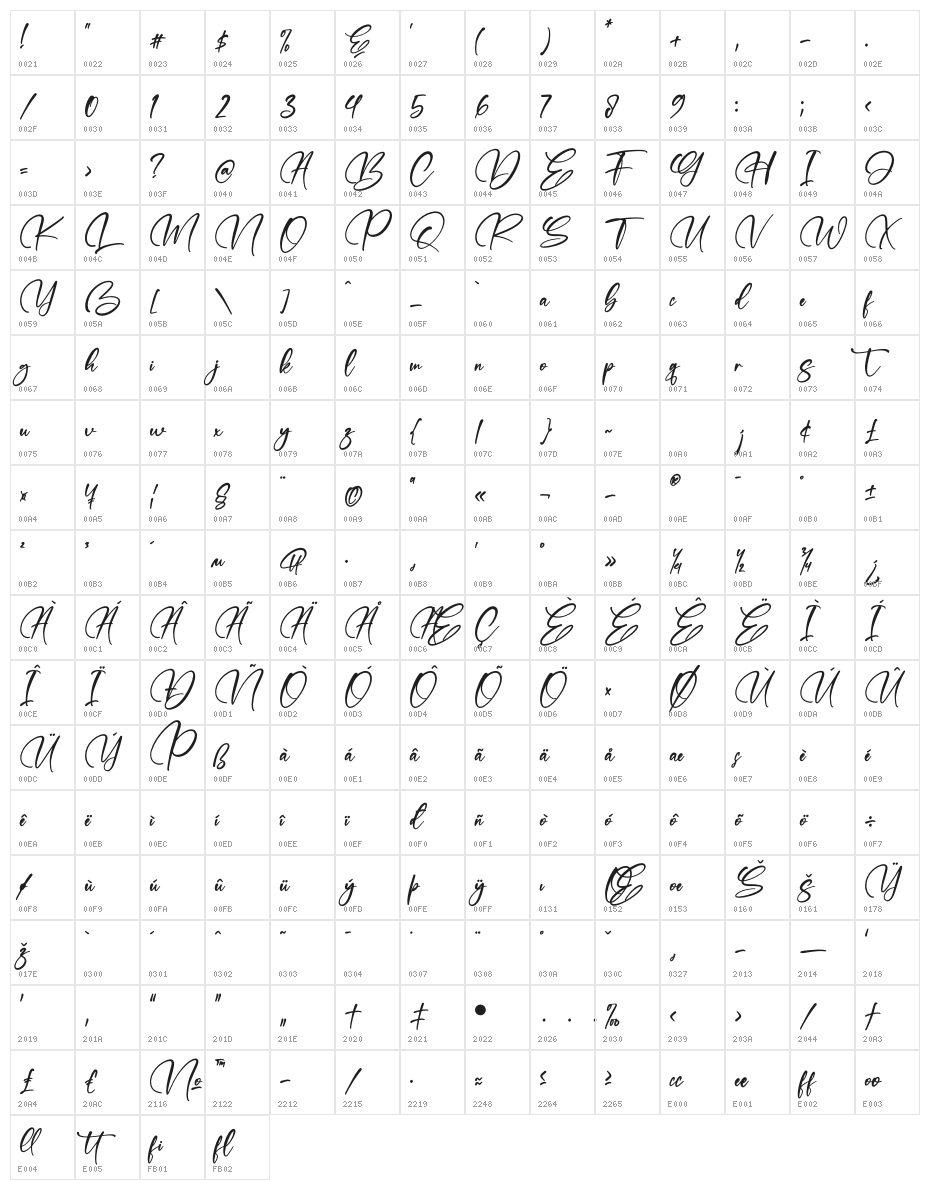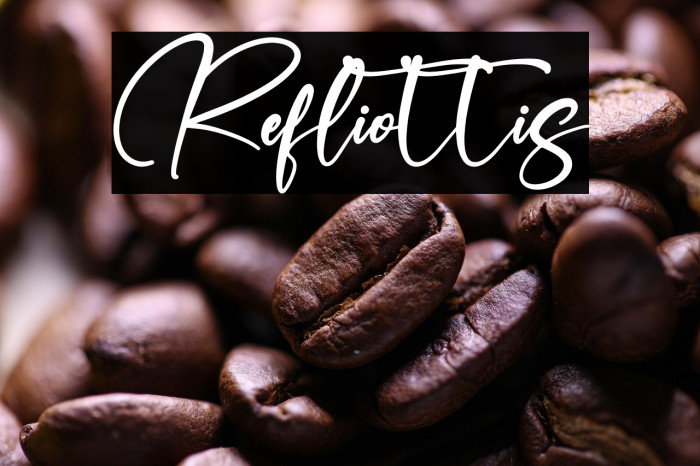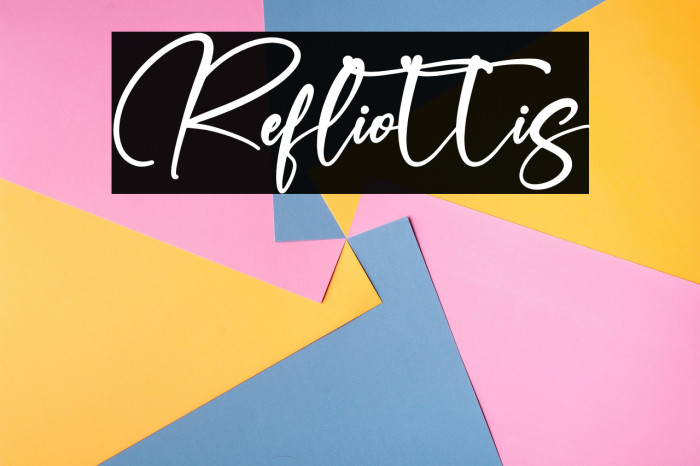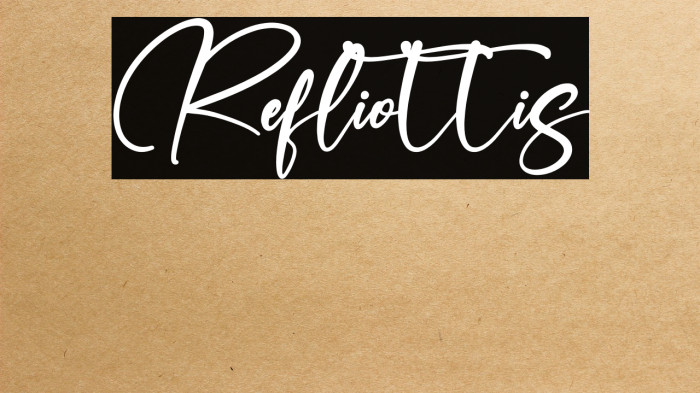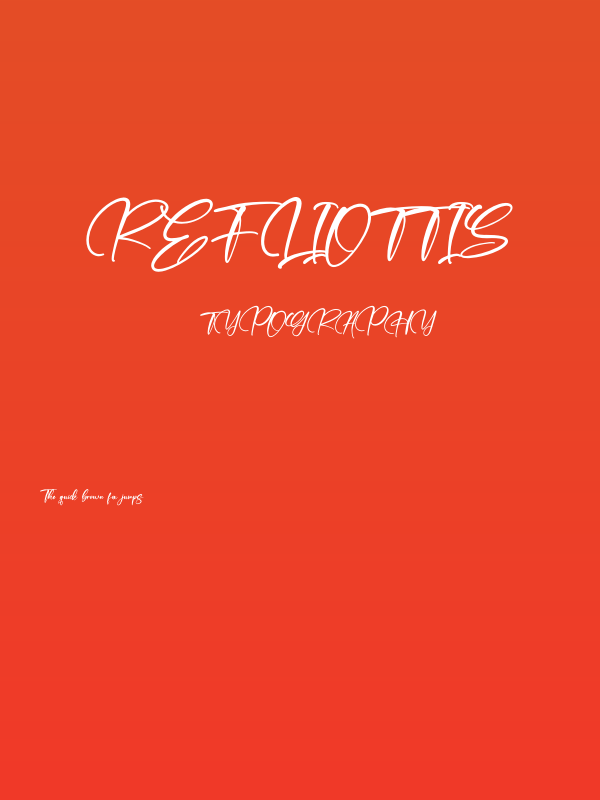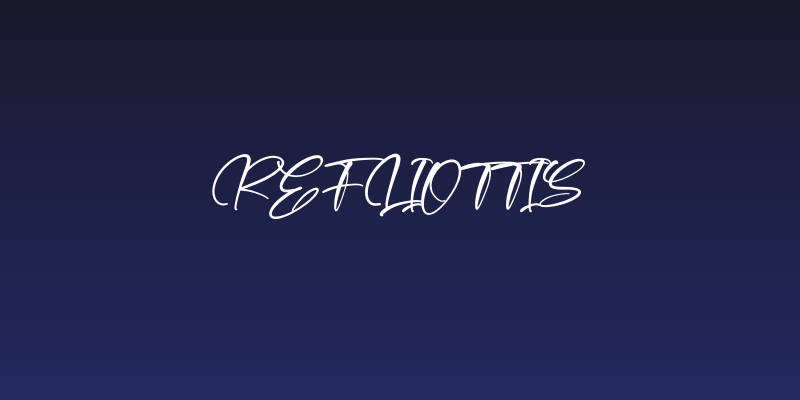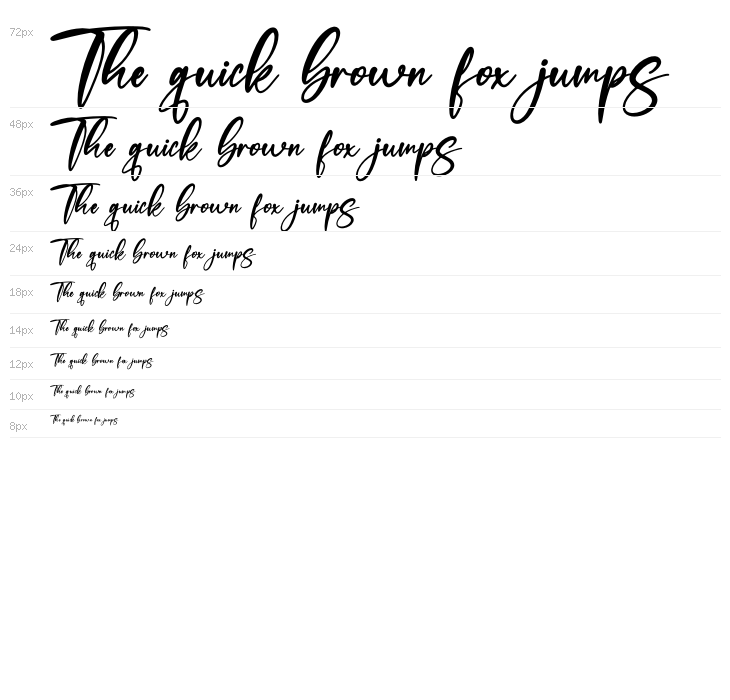
Refliottis Font
Refliottis Description
This font exudes a dynamic and elegant script style, characterized by its fluid, cursive strokes and artistic flair. The uppercase letters are bold and sweeping, with a sense of movement that suggests a handwritten touch. Lowercase letters maintain a consistent flow, adding to the overall cohesiveness of the design. The numerals are distinct and maintain the same cursive style, ensuring readability while preserving the font's unique character. Special characters are creatively integrated, enhancing the font's versatility. This font is perfect for projects that require a personal, artistic touch.
| Use Case | Logos, Headlines, Invitations |
| Proposed Projects | Ideal for wedding invitations, branding, greeting cards, and artistic projects that require a personal touch. |